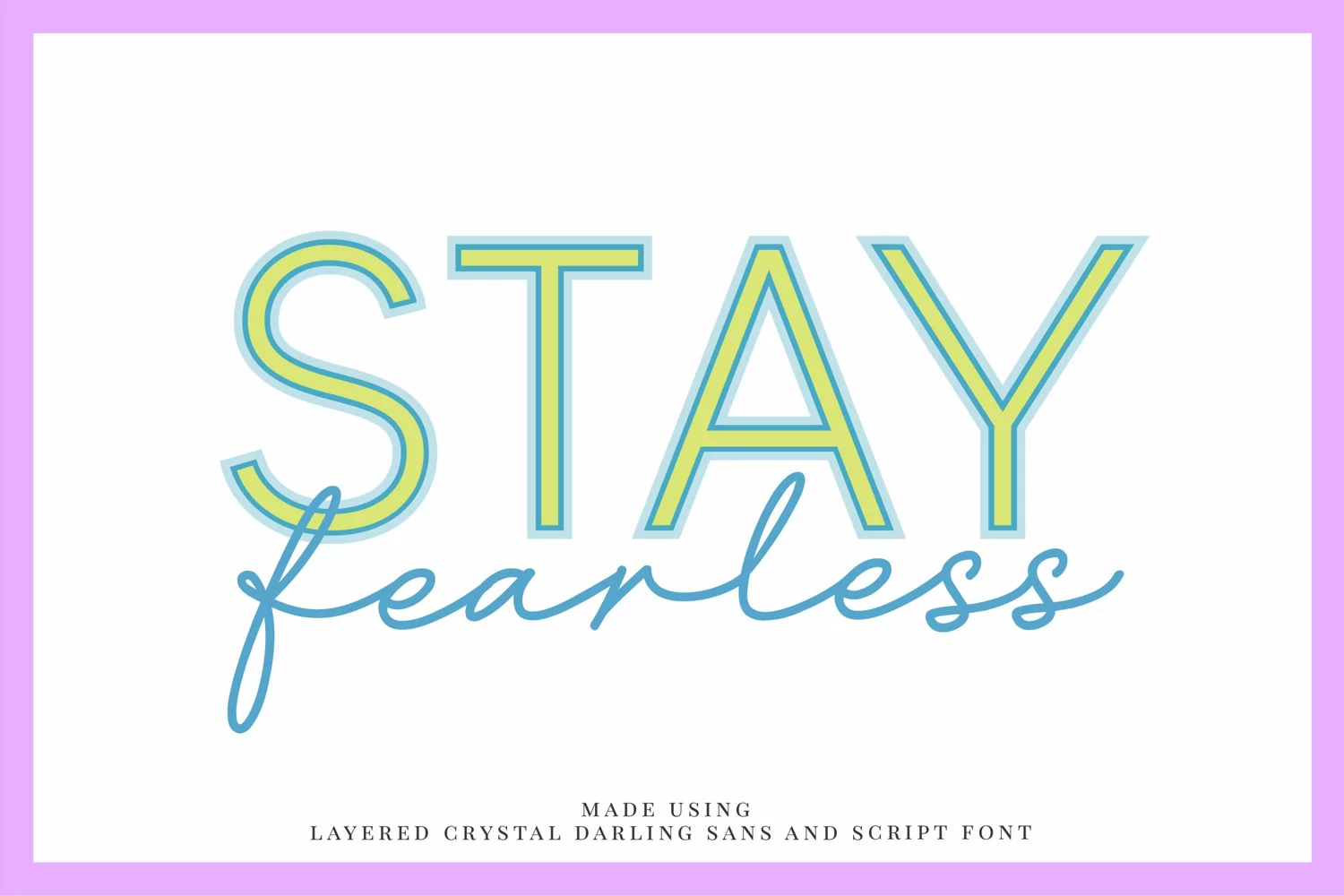
Crystal Darling, a layered sans and script font duo
Say hello to Crystal Darling – a magical layered sans and script font duo! This gorgeous font duo is perfect for magazine covers, bold headlines, wedding invitations, social media posts, pretty logos and branding, beautiful quotes and more!
Crystal Darling Duo includes Crystal Darling Sans which is a unicase font and includes Uppercase letters, numbers and punctuation in 3 styles - Regular, Bold and Outline as well a trendy handwritten Crystal Darling script font that pairs perfectly with all 3 Sans styles. Use all of them as a stand alone font or together, pair them up as you please and you can have many different fun pairings.
Layer up these fonts by simply duplicating your "Regular" layer and change the font to "Crystal Darling Outline" or start with "Bold" and stack up "Regular" and then "Outline. You can also play around and offset the "Outline" font to achieve a fun quirky look (see preview image 5: Good vibes only)
- Crystal Darling Sans
- Crystal Darling Sans Bold
- Crystal Darling Sans Outline
- Crystal Darling Script